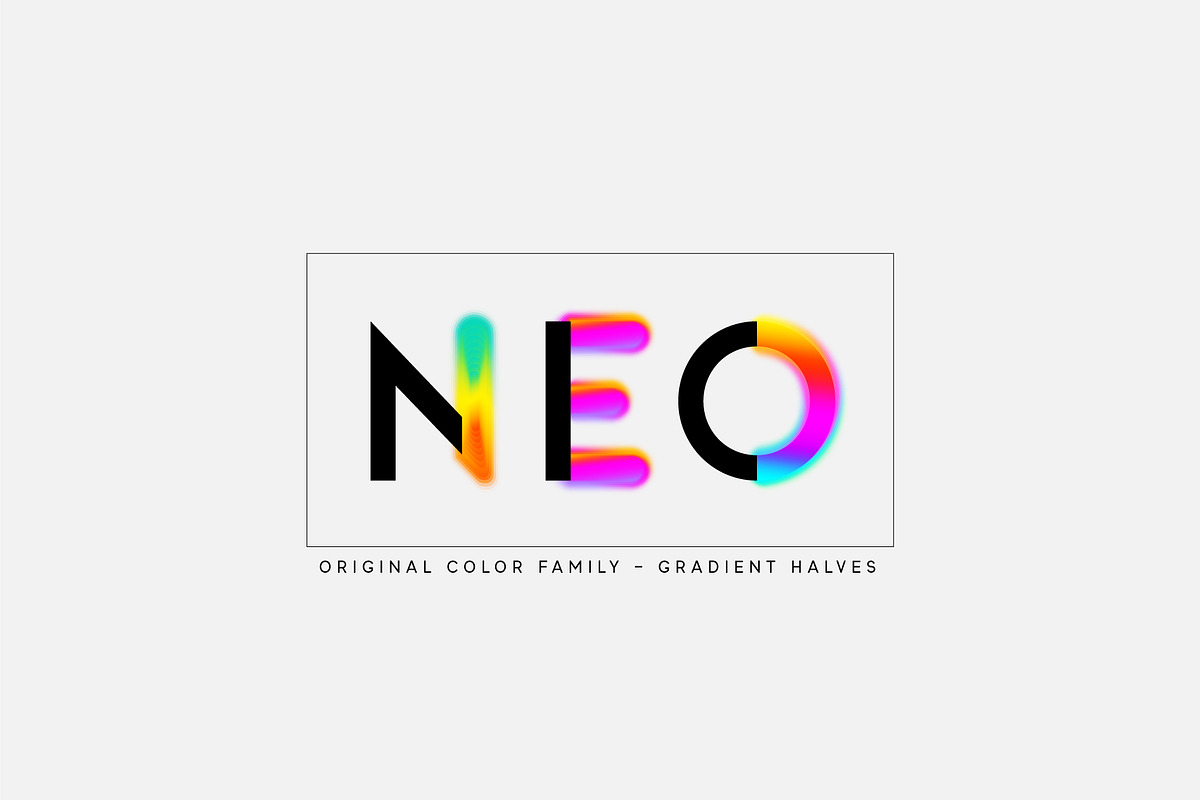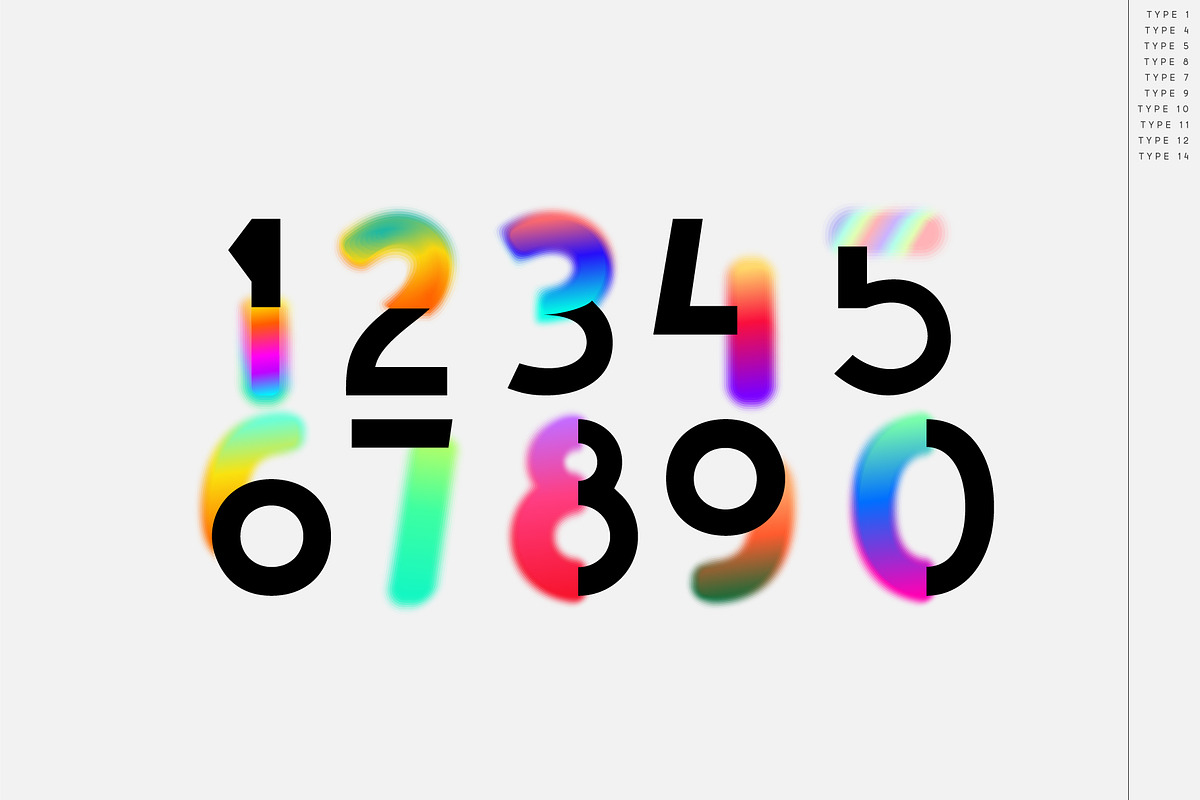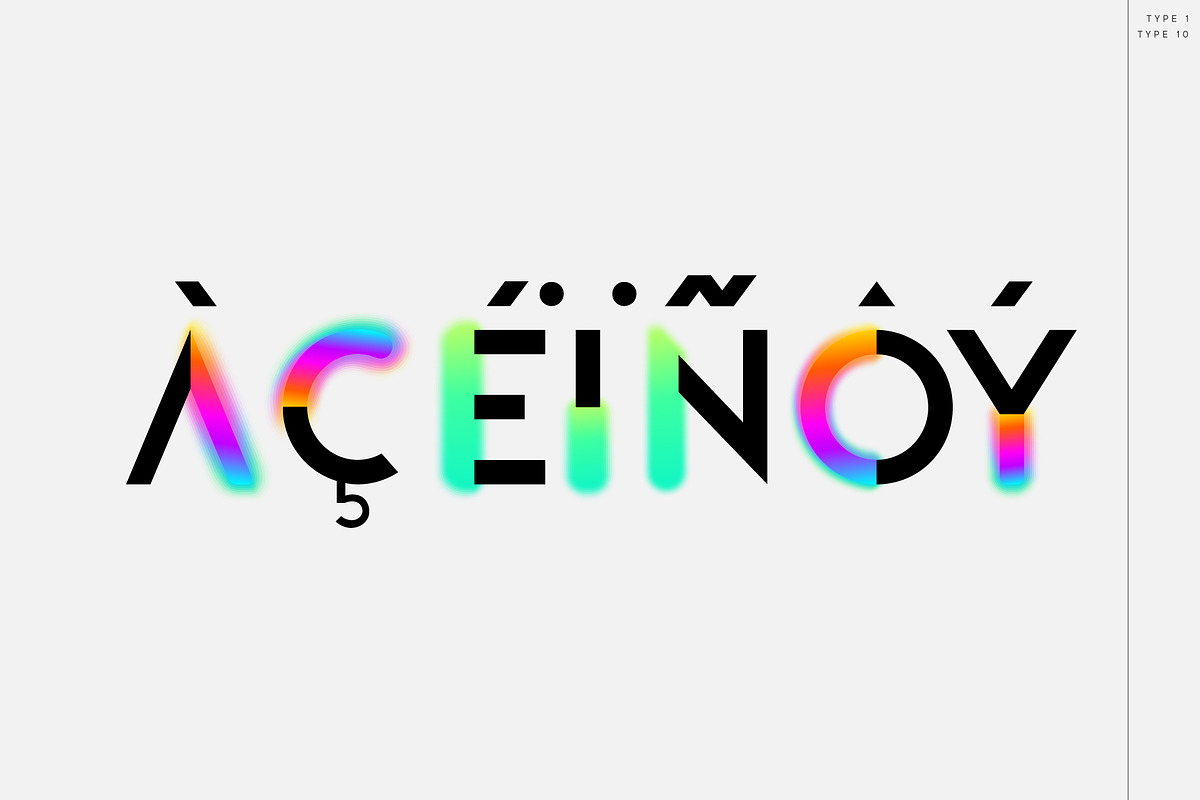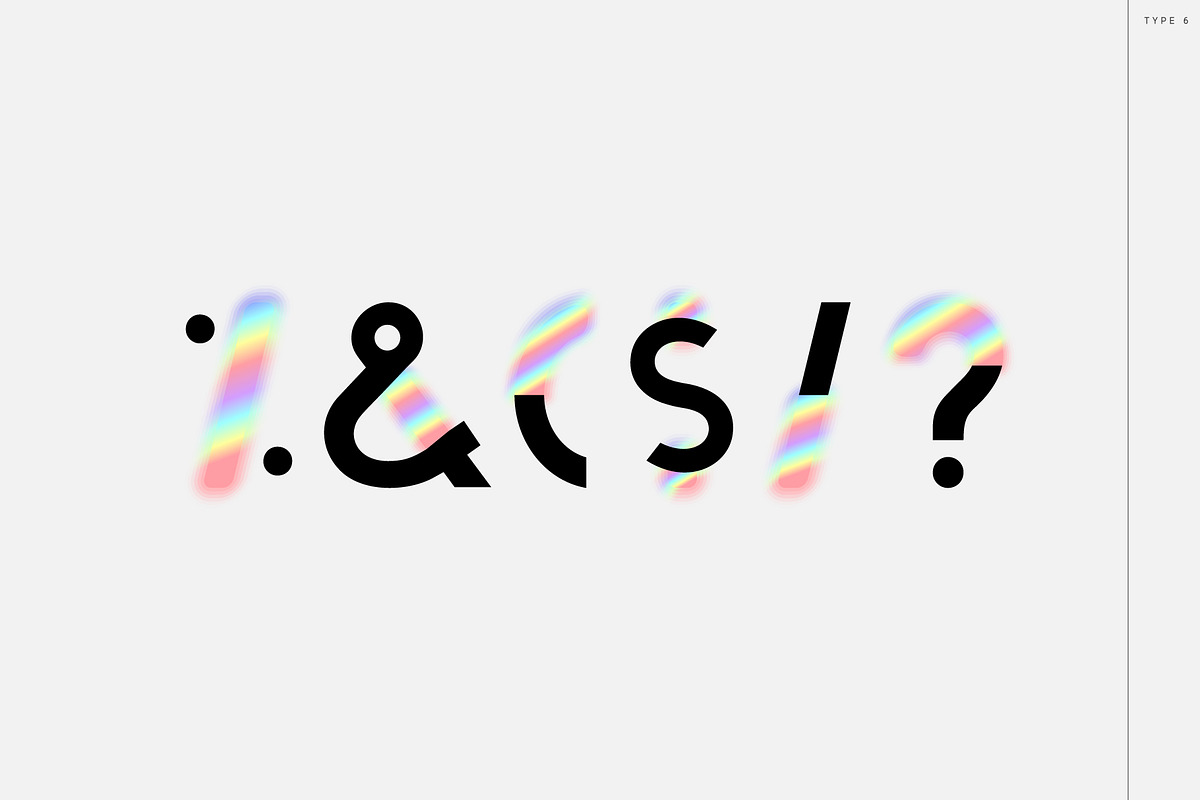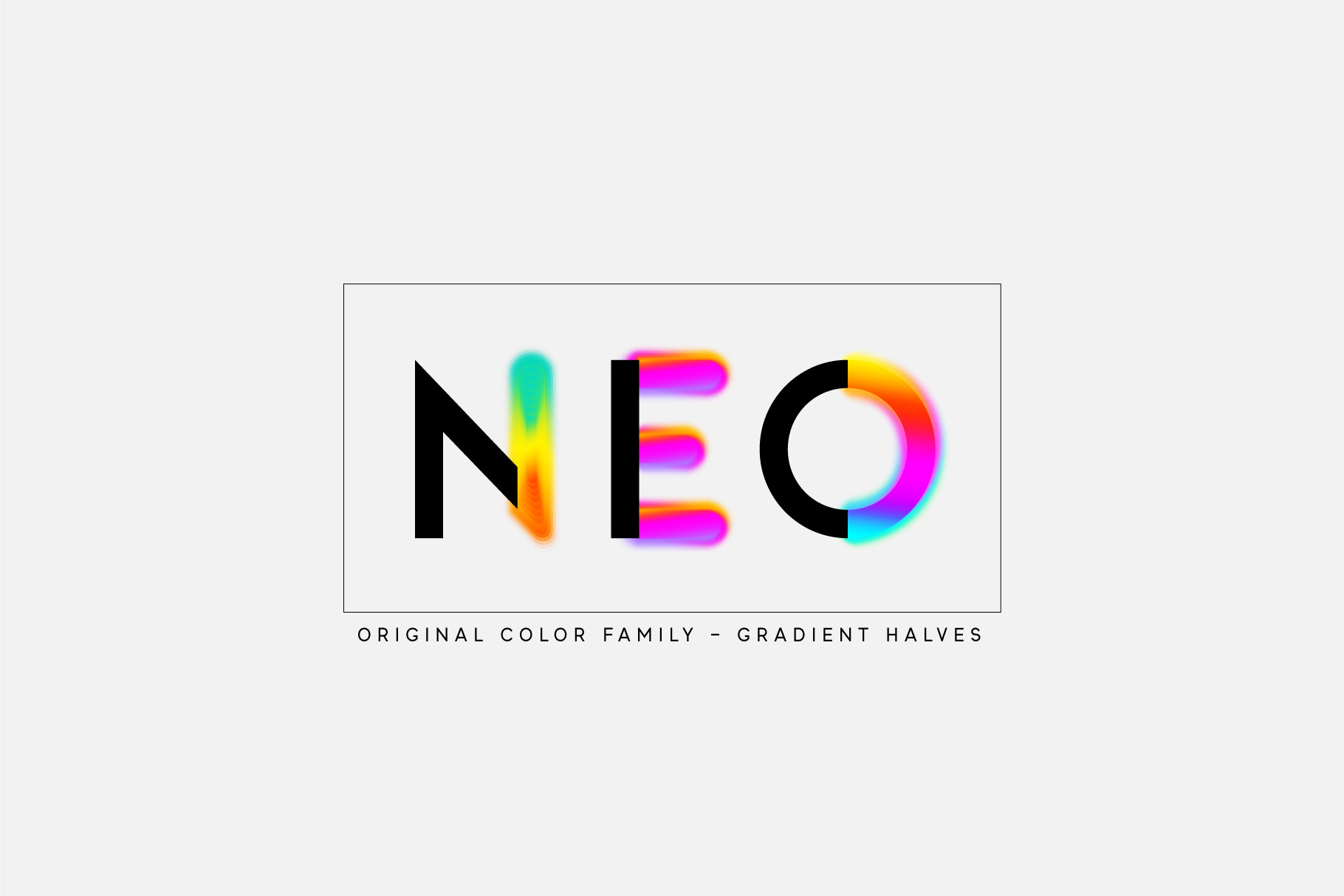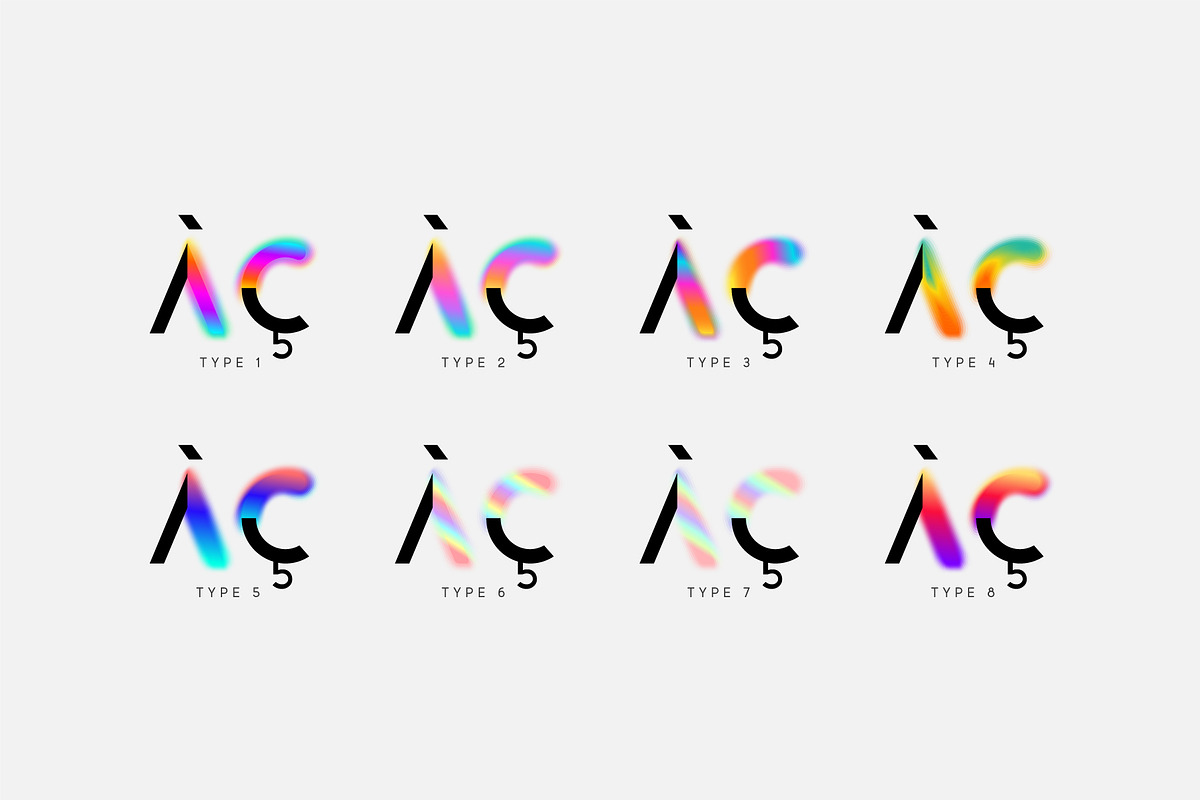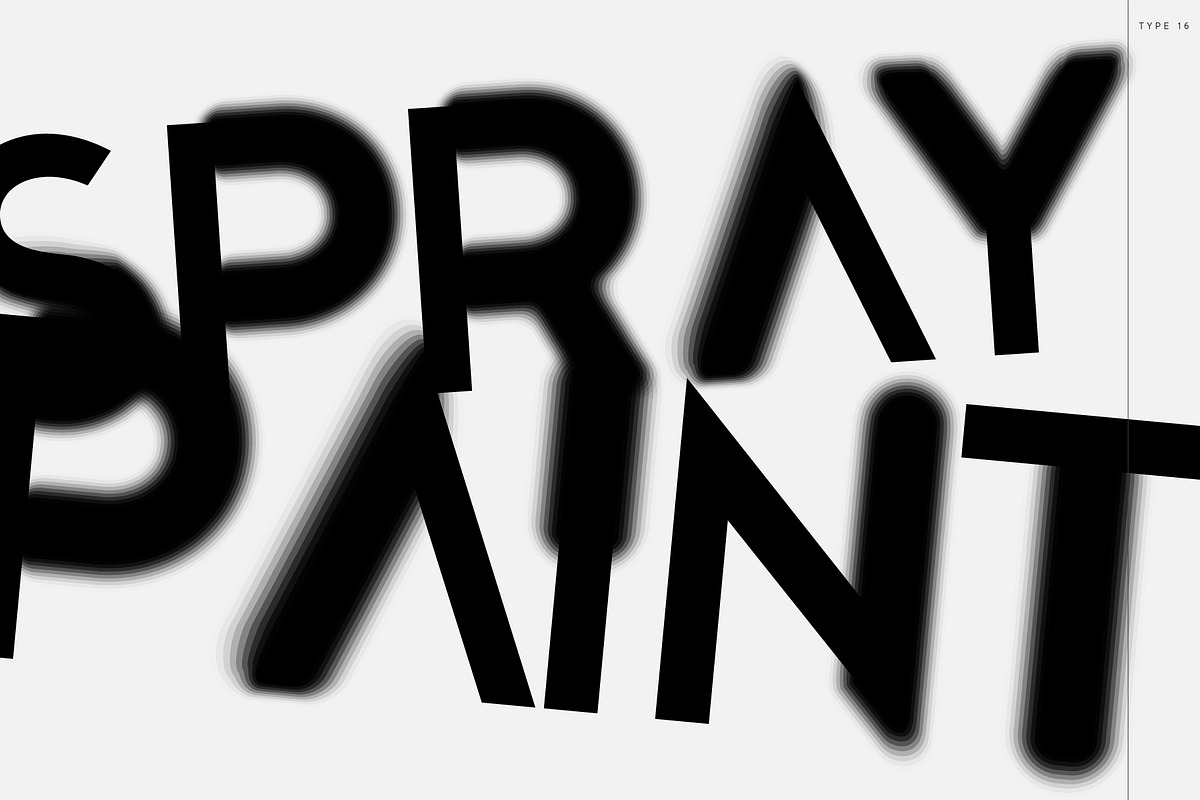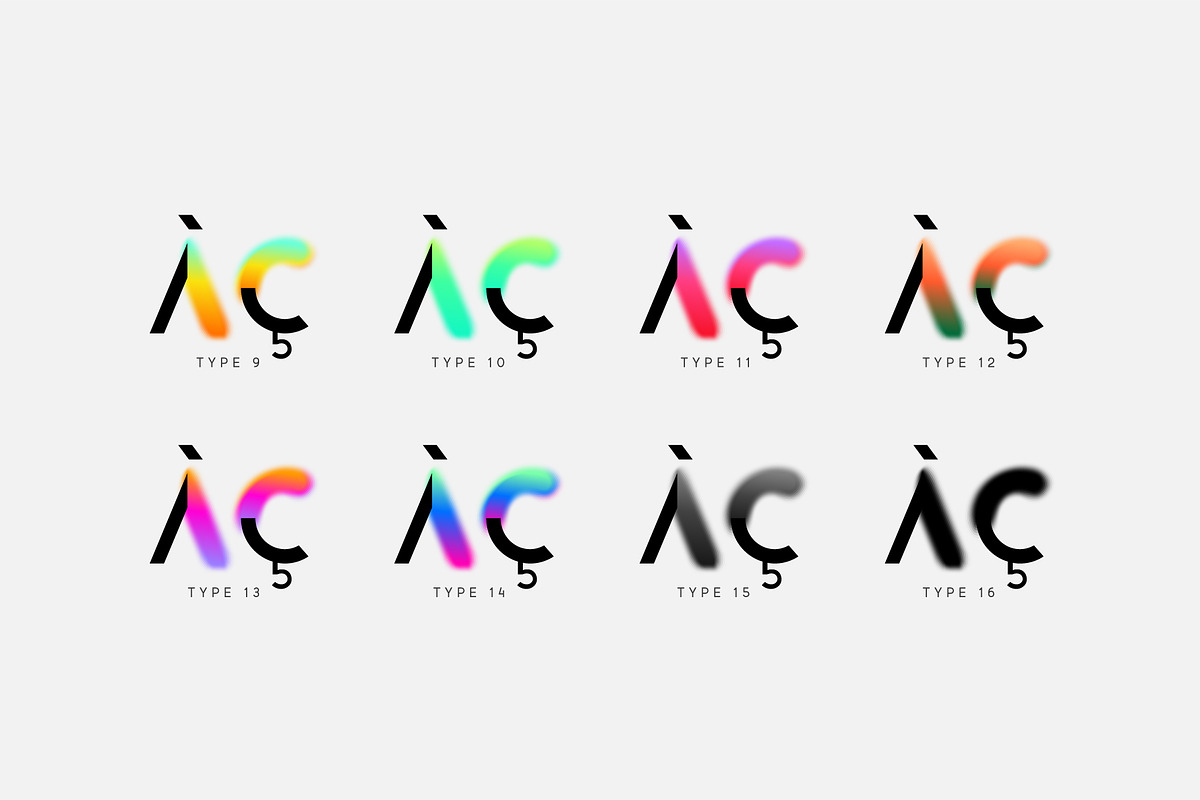
Neotype. Color OTF-SVG font family.
Introducing Neotype. Abstract font family with COLORED halves. An interesting and unusual fonts in the glitch style. Combination of clear shapes with soft gradients. Geometric color stylization of sans serif letters. Suitable for bold designs, experimentation, or emphasis in monochrome words when paired with the Boldini family (this color font is based on it). Font fits well in headlines and small amounts of text. Vibrant colors in the typeface are sure to grab the audience's attention.
This font family is based on the Regular font Boldini - which means that if necessary you can combine these two families and they will be absolutely stylistically identical and complement each other.
- 16 OTF SVG color fonts in family.
- Uppercase and lowercase the same size but different colors.
- Transparency in letters.
- Kerning.
- OTF SVG fonts contain vector letters with gradients and transparency.